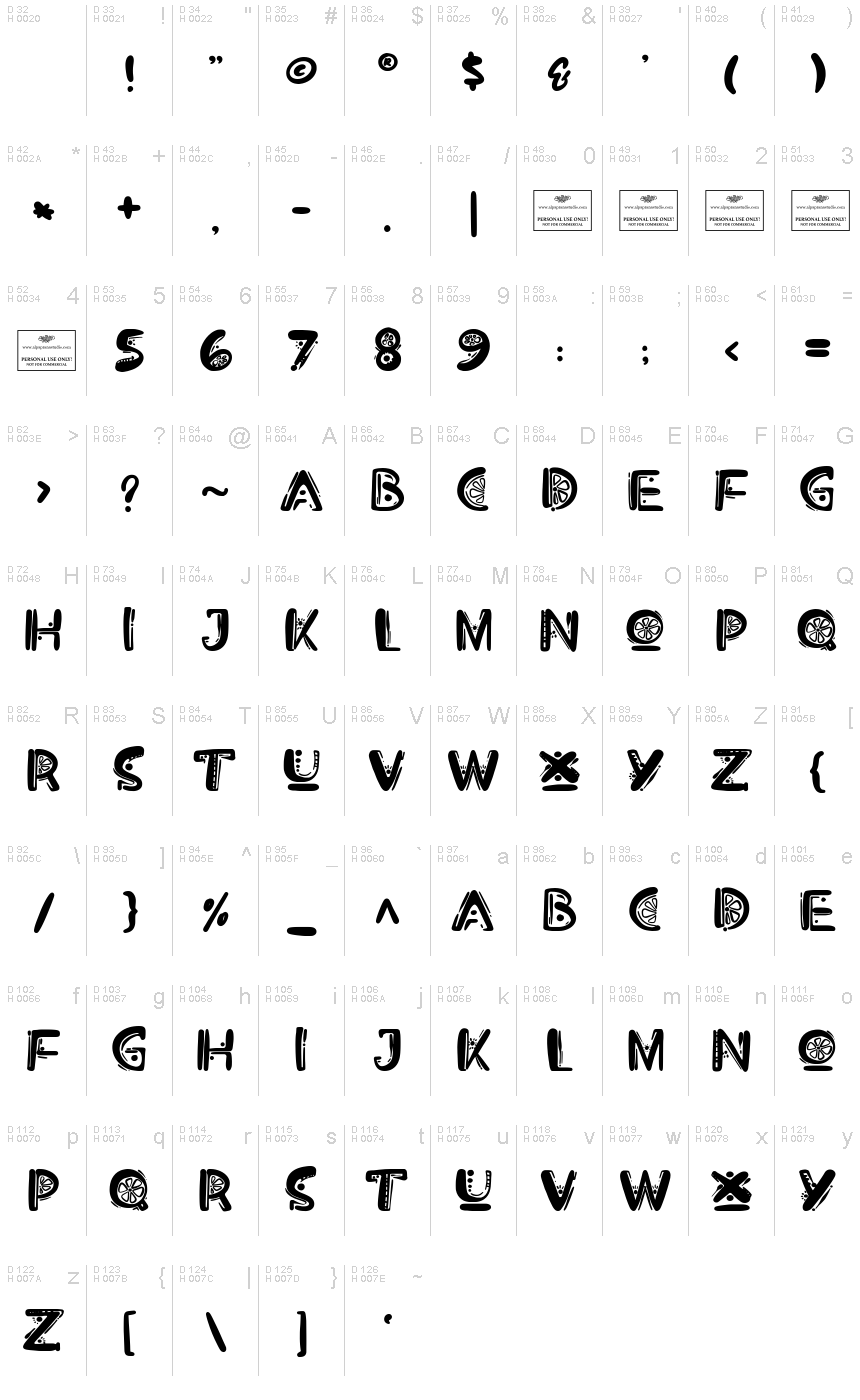
Orange Squash
Orange Squash is a striking display font that radiates a vibrant, playful energy. Designed by the talented team at Alpaprana Studio, this decorative typeface boasts a captivating visual style that immediately captures the eye. With its bold, organic letterforms and a distinct citrus-inspired color palette, Orange Squash exudes a delightful sense of whimsy and personality.
This font excels in eye-catching headlines, promotional materials, and branding applications where a bold, attention-grabbing aesthetic is desired. Its unique character can lend a fresh, contemporary vibe to a wide range of design projects, from packaging and posters to social media graphics and website headers. Whether used as a standalone display font or paired with complementary typography, Orange Squash is sure to add a dose of zest and flair to any design.